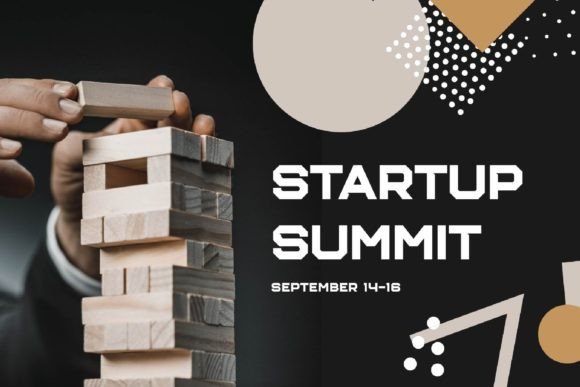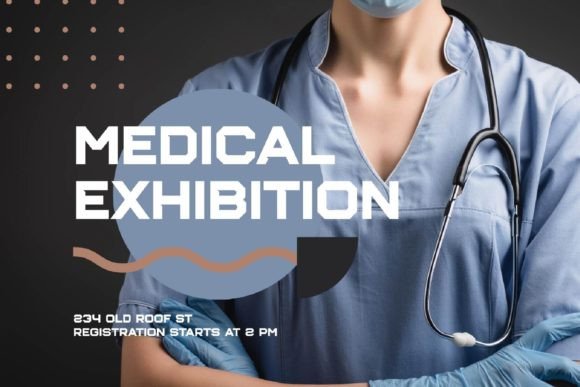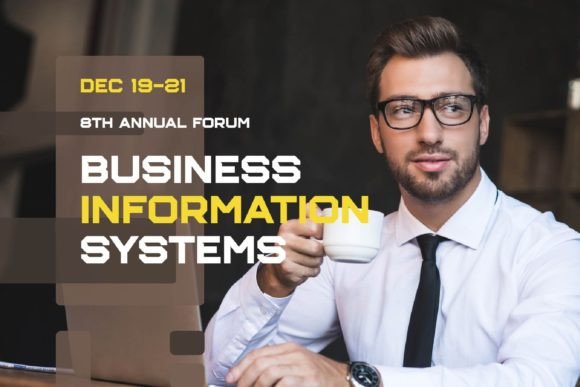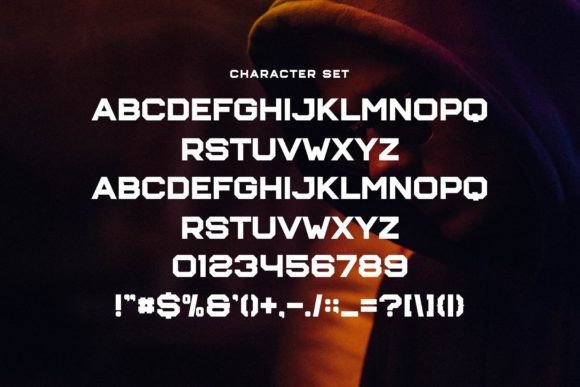
Costa Font: The Ultimate Sans Serif for Modern Designers
In the world of design, fonts play a crucial role in conveying the message and aesthetic of a project. For designers and crafters looking for a clean, modern, and versatile font, Costa Font is an excellent choice. Inspired by the famous minimalist logo, Costa is a sans serif font that has become a go-to for various design applications.
The Inspiration Behind Costa Font
Costa Font draws its inspiration from the minimalist logo design movement. The creators aimed to craft a font that embodies simplicity, elegance, and clarity. The result is a clean and crisp sans serif font that works well in a variety of design contexts. Whether you’re working on a logo, brochure, or social media graphics, Costa Font provides a solid foundation for your creative projects.
Key Features of Costa Font
- Clean and Minimalist Design: Costa Font boasts a sleek and uncluttered design, making it perfect for modern designs that require a touch of sophistication.
- Sans Serif: The font’s sans serif design ensures that it remains legible and clear, even at smaller font sizes.
- Versatile: Costa Font can be used across various design projects, from print materials like brochures and logos to digital applications such as videos and social media graphics.
- Elegant and Crisp: The font’s elegant lines and crisp edges make it suitable for designs that require a high level of precision and refinement.
Use Cases for Costa Font
Costa Font’s versatility makes it an excellent choice for a wide range of design projects. Here are some popular use cases:
- Template Design: Create professional-looking templates for presentations, reports, or social media using Costa Font.
- Brochures and Flyers: Add a touch of elegance to your marketing materials with Costa Font.
- Video and Motion Graphics: Use Costa Font to create engaging titles, subtitles, and overlays for your videos.
- Advertising and Branding: Establish a strong brand identity with Costa Font, perfect for logos, business cards, and letterheads.
- Logos and Icon Design: Create memorable logos and icons with Costa Font’s clean and minimalist design.
- Invitations and Event Design: Add a touch of sophistication to your event invitations and designs with Costa Font.
- Layout Design and Crafting: Use Costa Font to create beautiful and elegant crafts, such as handmade cards, journals, or scrapbooking.
- Beauty and Cosmetics Design: Create stunning designs for beauty and cosmetics brands with Costa Font.
Why Choose Costa Font?
With so many fonts available, why choose Costa Font for your design projects? Here are a few compelling reasons:
- Legibility: Costa Font is designed to be clear and legible, ensuring that your message is conveyed effectively.
- Flexibility: The font’s versatility makes it suitable for a wide range of design applications.
- Elegance: Costa Font adds a touch of sophistication and elegance to any design project.
- Easy to Pair: The font’s clean design makes it easy to pair with other fonts, allowing you to create stunning font combinations.
Costa Font is an excellent choice for designers and crafters looking for a clean, modern, and versatile sans serif font. Its minimalist design, elegance, and legibility make it perfect for a wide range of design projects. Whether you’re working on a logo, brochure, video, or craft project, Costa Font provides a solid foundation for creating stunning designs. With its flexibility and ease of use, Costa Font is sure to become a staple in your design toolkit.